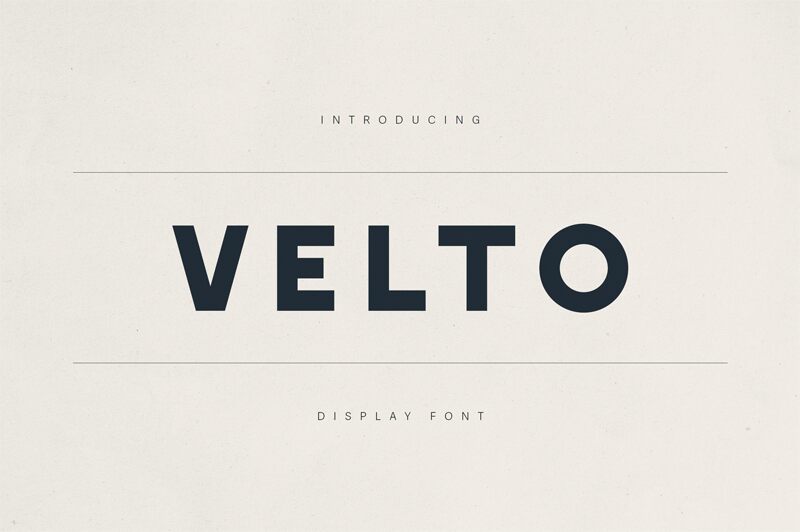
Velto font by VPcreativeshop is a free sans serif font formal yet friendly for the discerning minimalist. With a strong sense of identity and individuality, its strong character is presented in a form of versatility and elegance. The overall clean, modern, and geometric design with balanced proportions ensure a contemporary sleek appeal.
Velto’s simplicity and compact format makes it perfect for minimalistic branding with a friendly edge. It’s also perfect for headlines of magazines, posters or website design. Business cards or resumes have never seemed so clean and sleek before.